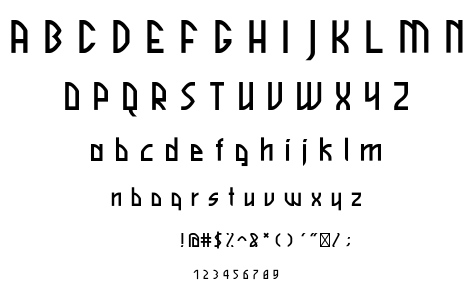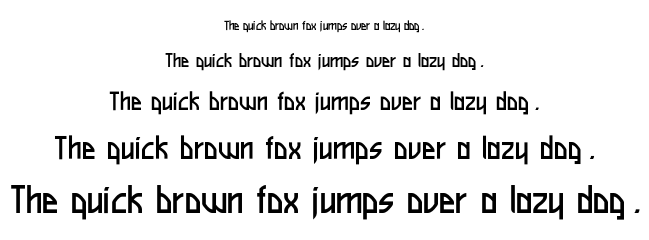
Skyline is an extraordinary font that is made for big headlines and other striking elements. This font is for personal use only. Commercial use only with permission.